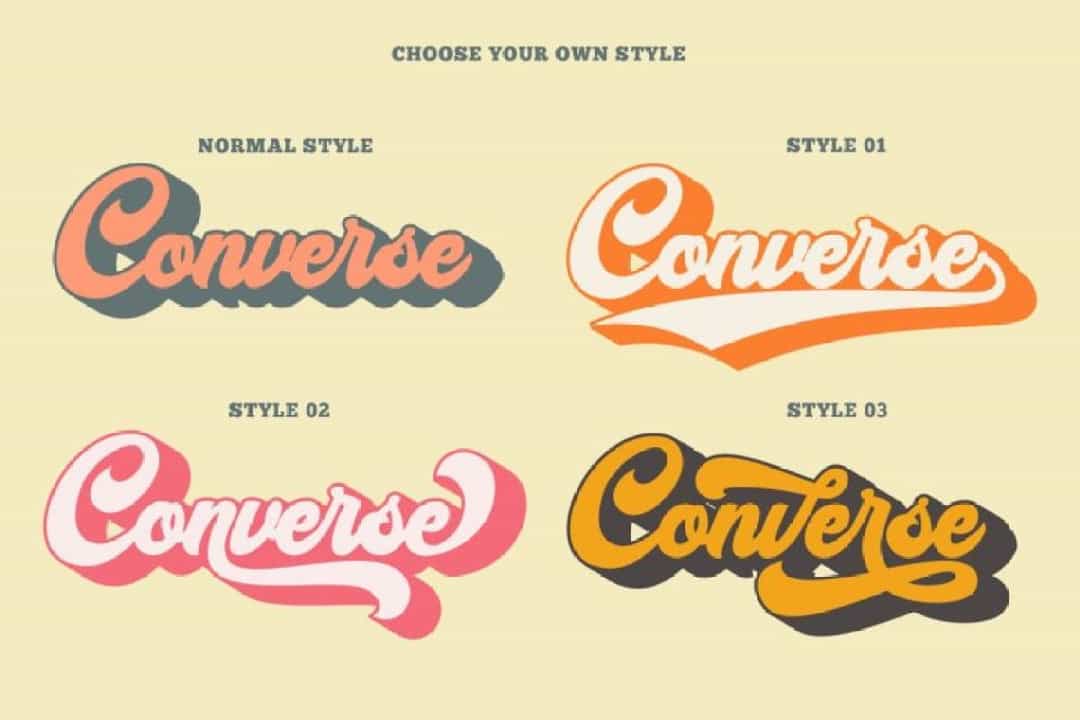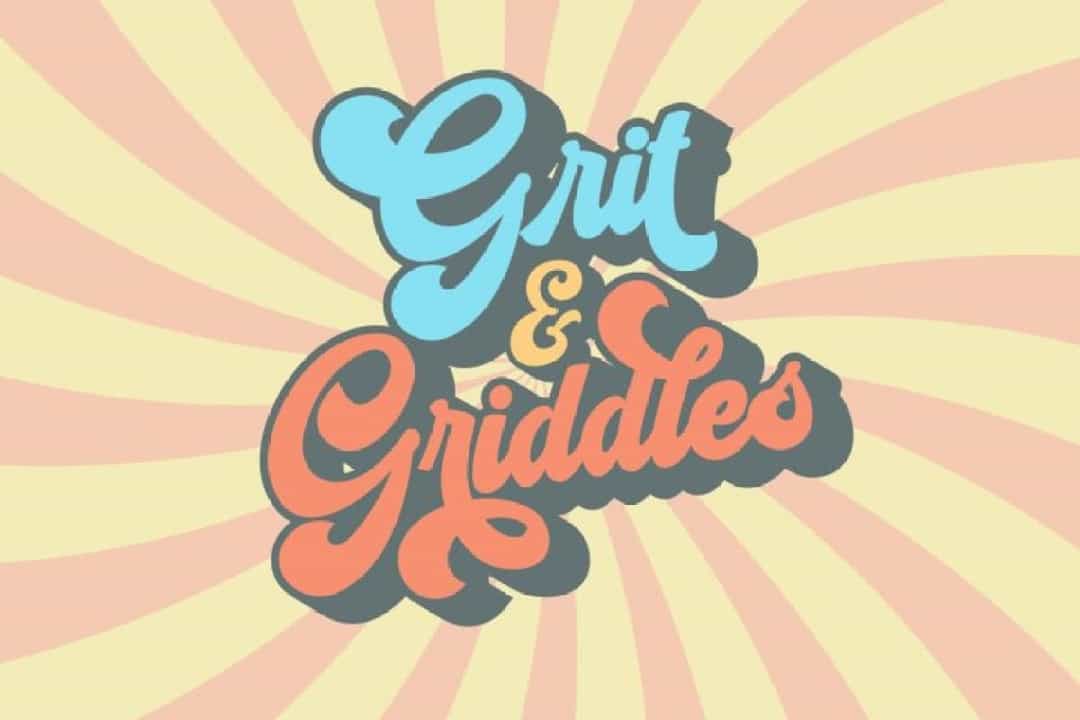
Discover Rhapsody Retro Bold Script Typeface, part of the Retro Script Vintage collection—a versatile and unique font perfect for adding a personal touch to your projects. Download it for free and enjoy crafting designs with style, from invitations to social media posts. This font is available exclusively for personal use, giving you the freedom to create without limits. Unlock your creativity with Rhapsody Retro Bold Script Typeface today!
Rhapsody is a beautiful retro script font that gives the feel of the past, specifically the 1970s. It is ideal for logotypes, t-shirts, buttons, brand slogans and packaging slogans and more – Rhapsody gives a retro look to give your design a vintage twist for logotypes, t-shirts, retro badges, branding quotes and packaging quotes.